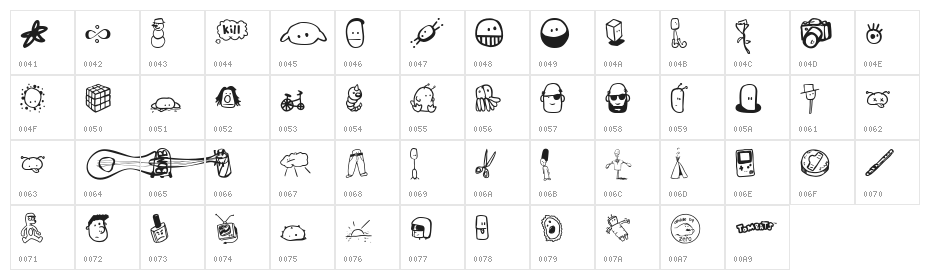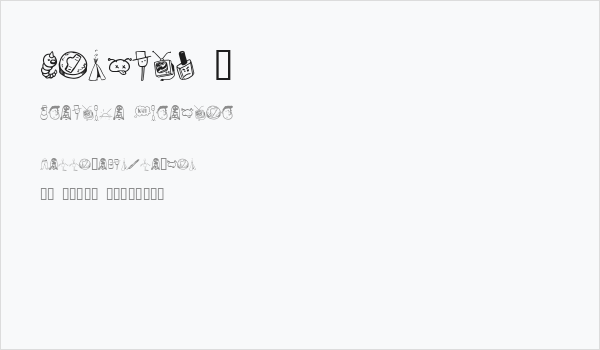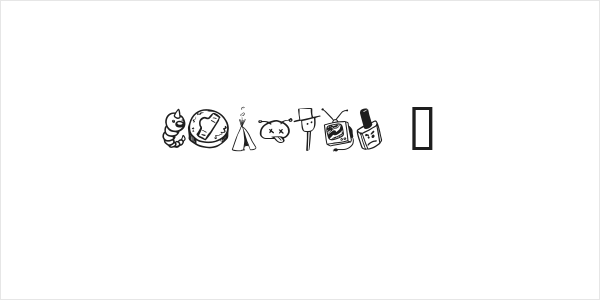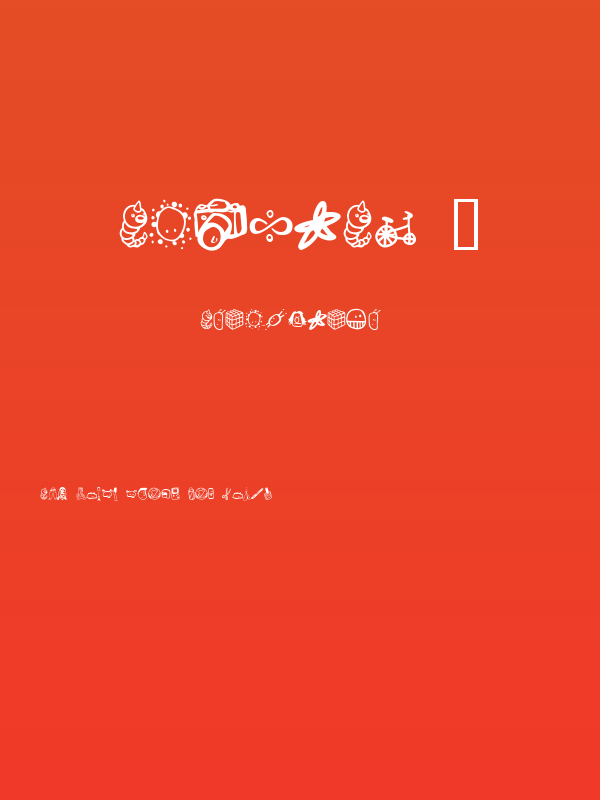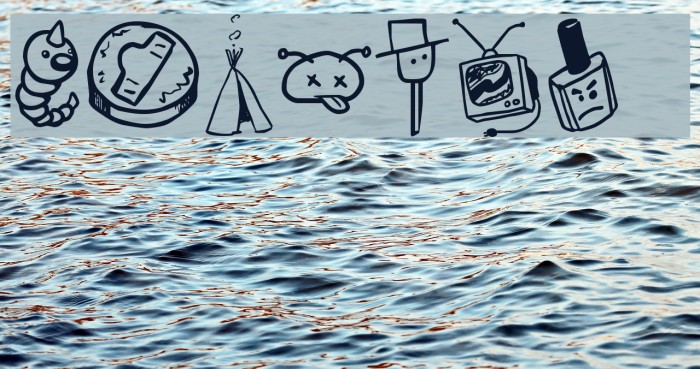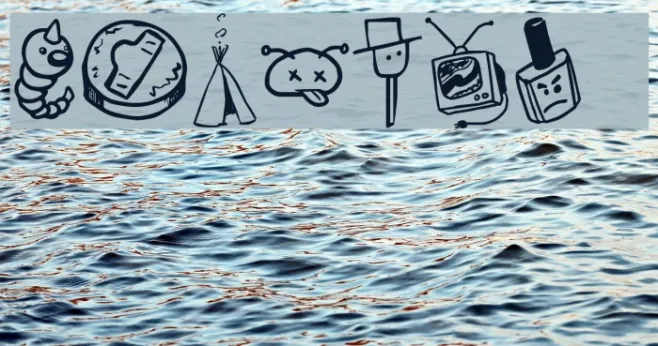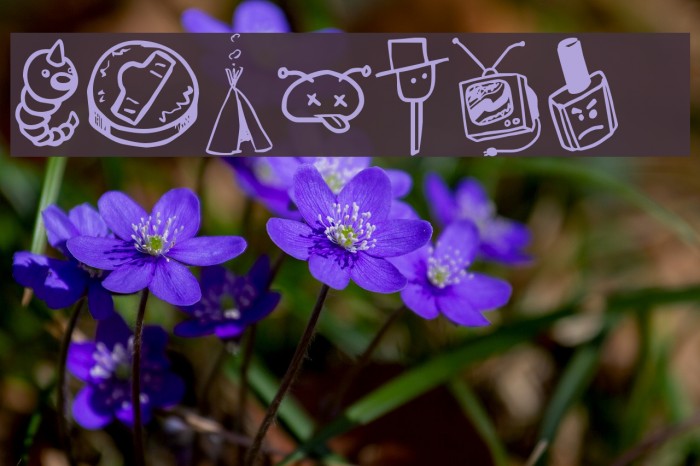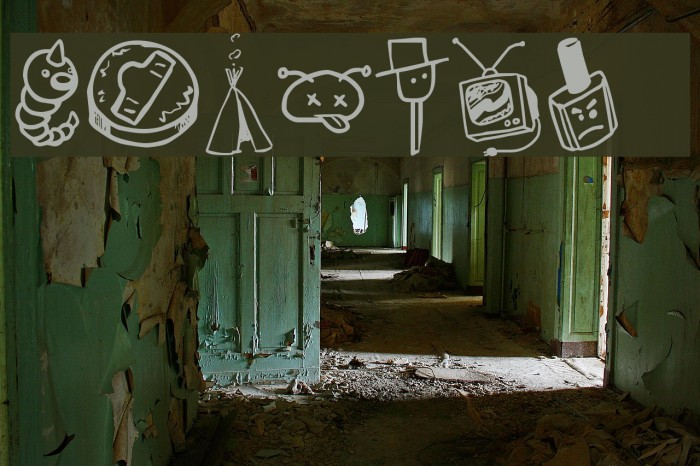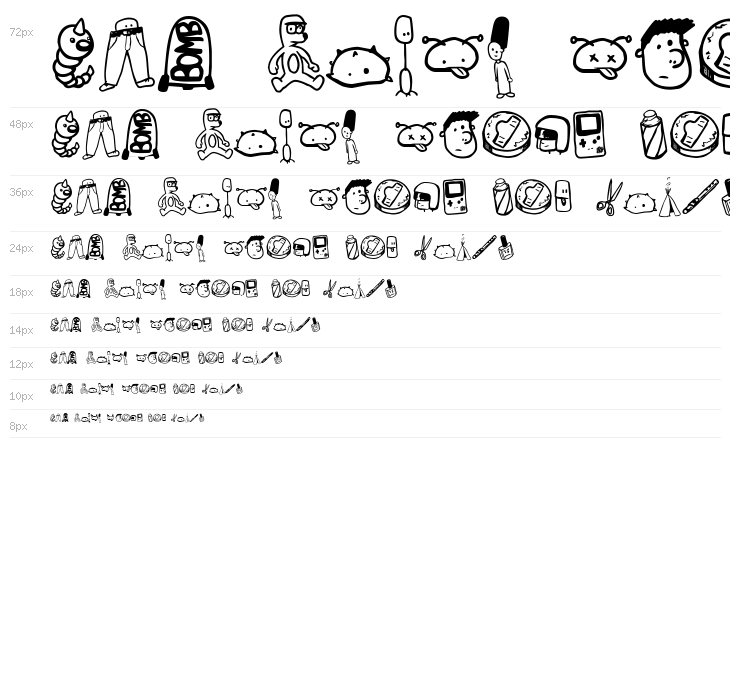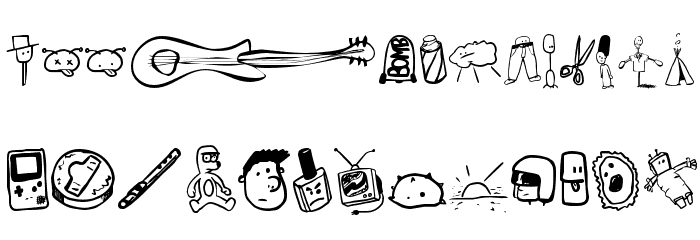
Tombats 6 Font
Tombats 6 Description
This is a highly decorative and playful font consisting of various whimsical and cartoonish illustrations instead of traditional alphanumeric characters. Each character is represented by a unique doodle, ranging from abstract shapes to recognizable objects and characters, such as a snowman, a Rubik's cube, and a guitar. The style is hand-drawn with a casual and humorous tone, making it ideal for creative and informal projects. The illustrations are bold and clear, with a consistent line weight that ensures visibility and impact.
| Overall Style | Playful, Whimsical, Hand-drawn |
| Use Case | Decorative elements, Illustrative projects, Informal designs |
| Proposed Projects | Ideal for children's books, playful posters, creative invitations, and any project requiring a fun and informal touch. |